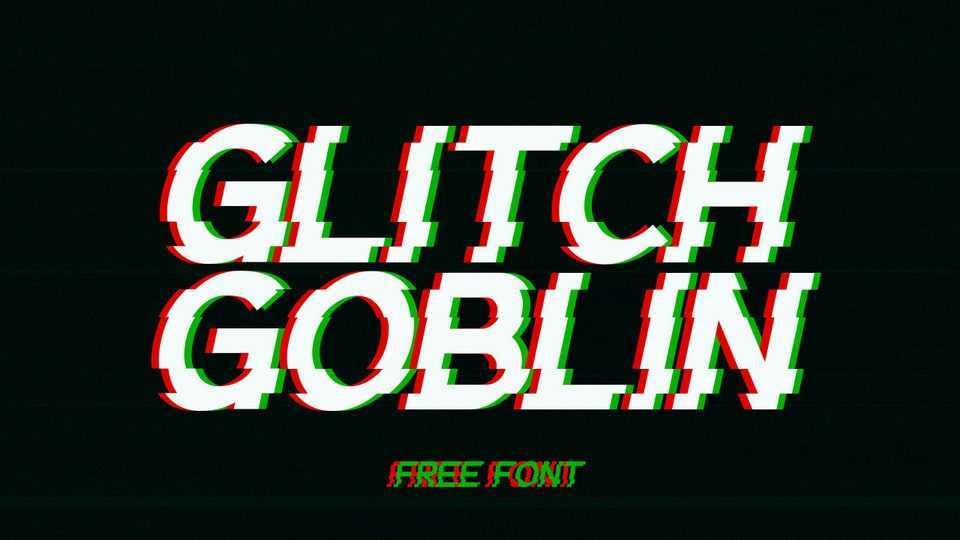
Download Glitch Goblin font, a bold distorted typeface with a digital glitch effect. Glitch Goblin font is perfect for games, cyberpunk and science fiction projects.